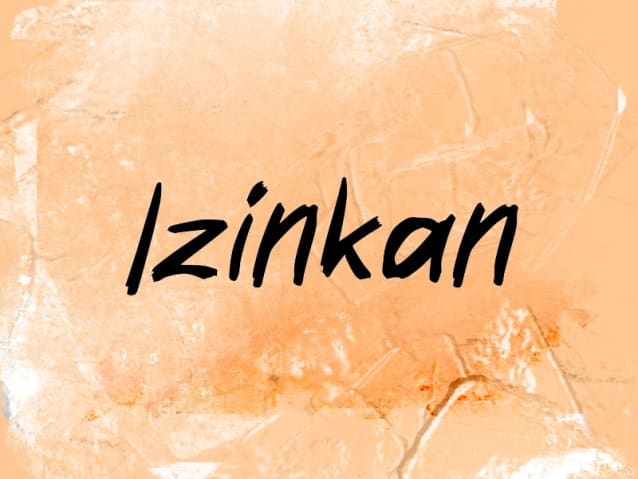
i Izinkan Font
i Izinkan Font inspired by brush lettering-style typography. This font is perfect for a design that makes it more attractive and playful. It was made with a very good level of aesthetics, making this font suitable for a book cover, poster, packaging, merchandise, logotype, and much more.